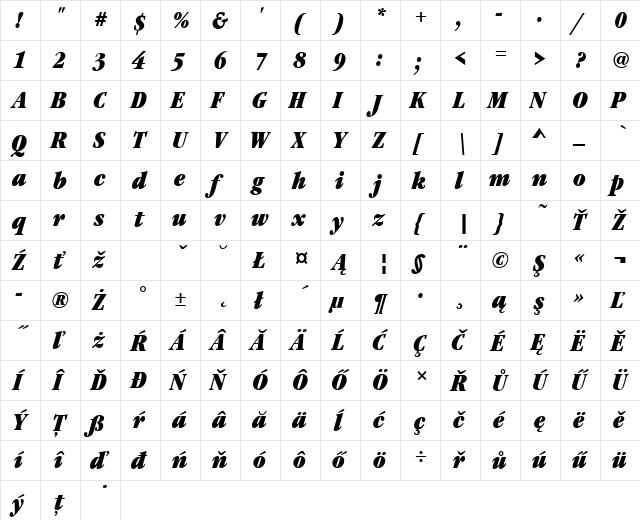
GaramondItcTEEUltCon Italic
Design Context for GaramondItcTEEUltCon Typeface
GaramondItcTEEUltCon offers clean, dependable letterforms without strong stylistic allegiance, making it a practical choice for designers who need flexibility. Its italic angle brings a sense of urgency and motion to the letterforms.
Pro Tip: Try GaramondItcTEEUltCon for annotation and caption copy alongside an upright companion — the contrast in angle creates a dynamic but ordered typographic system.